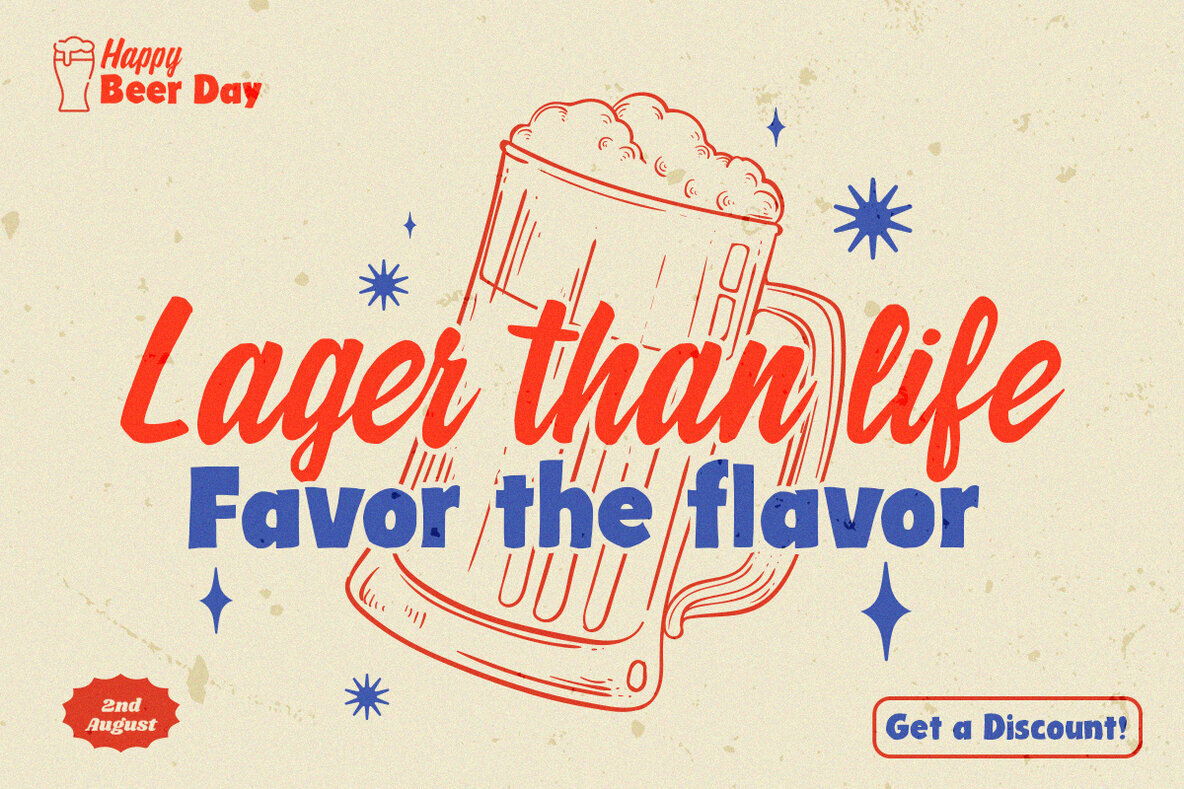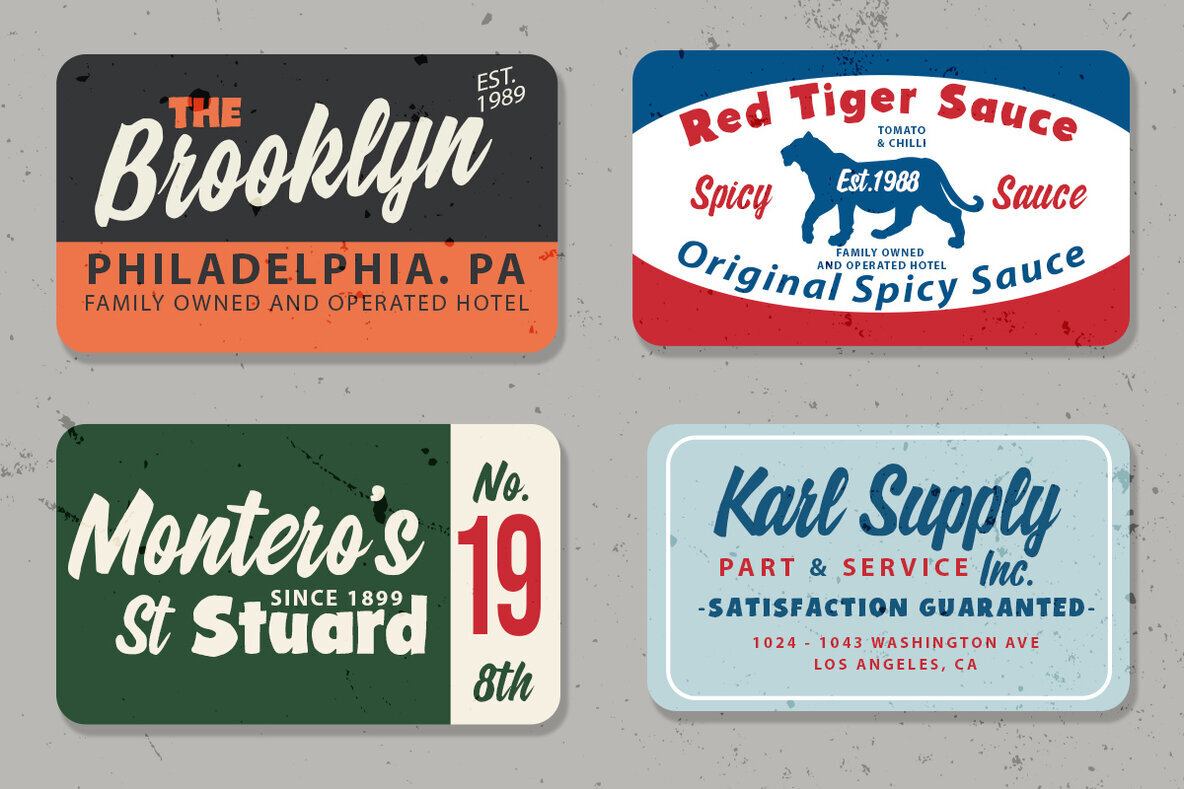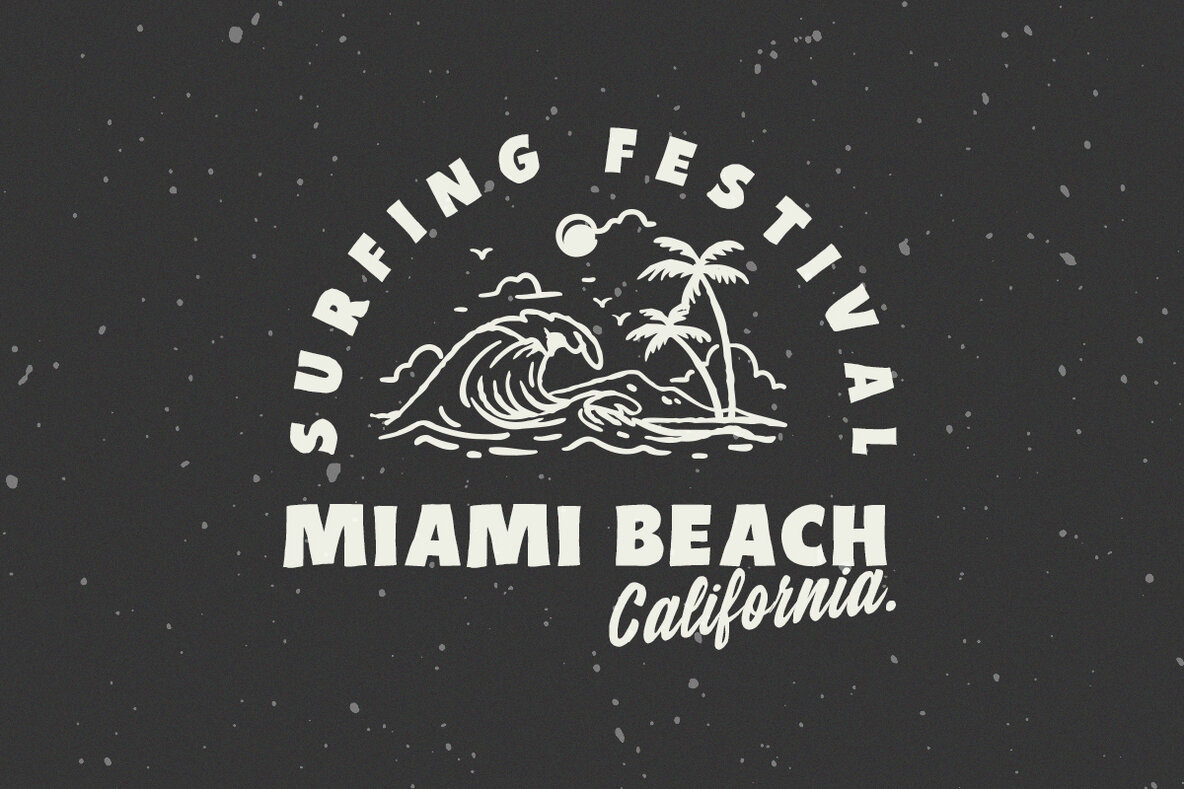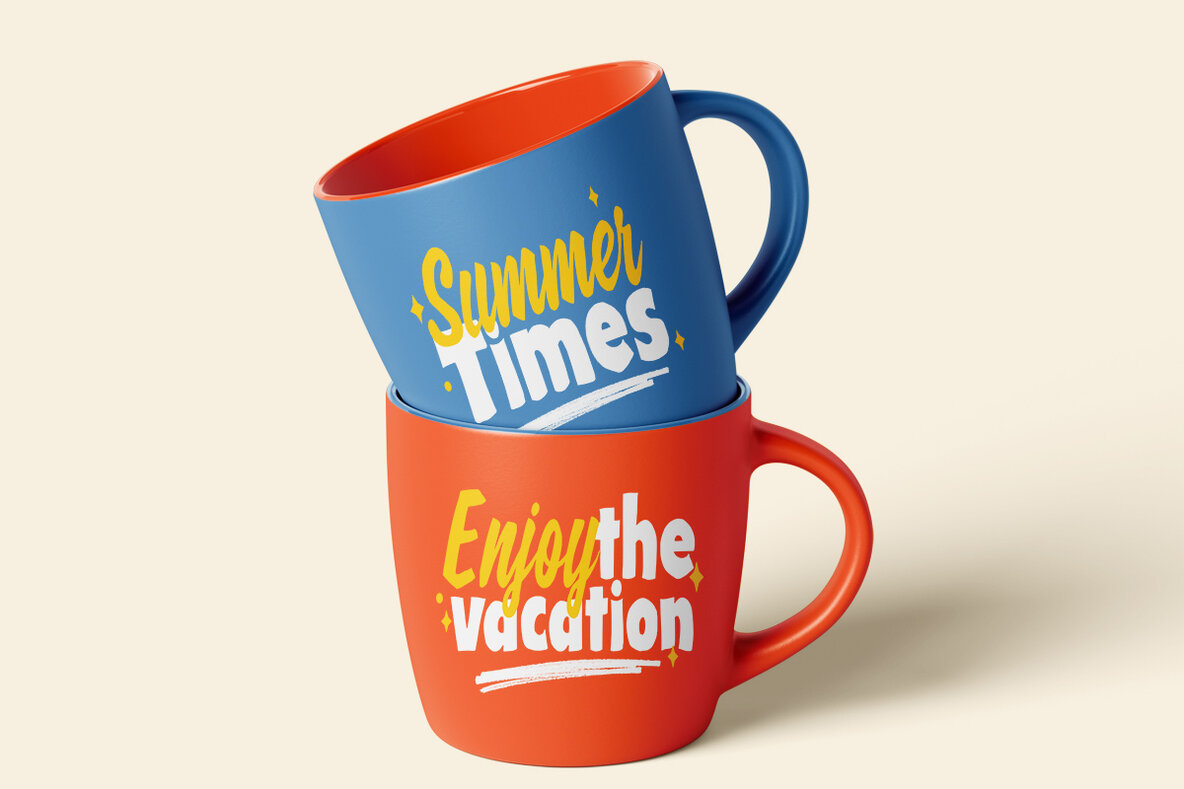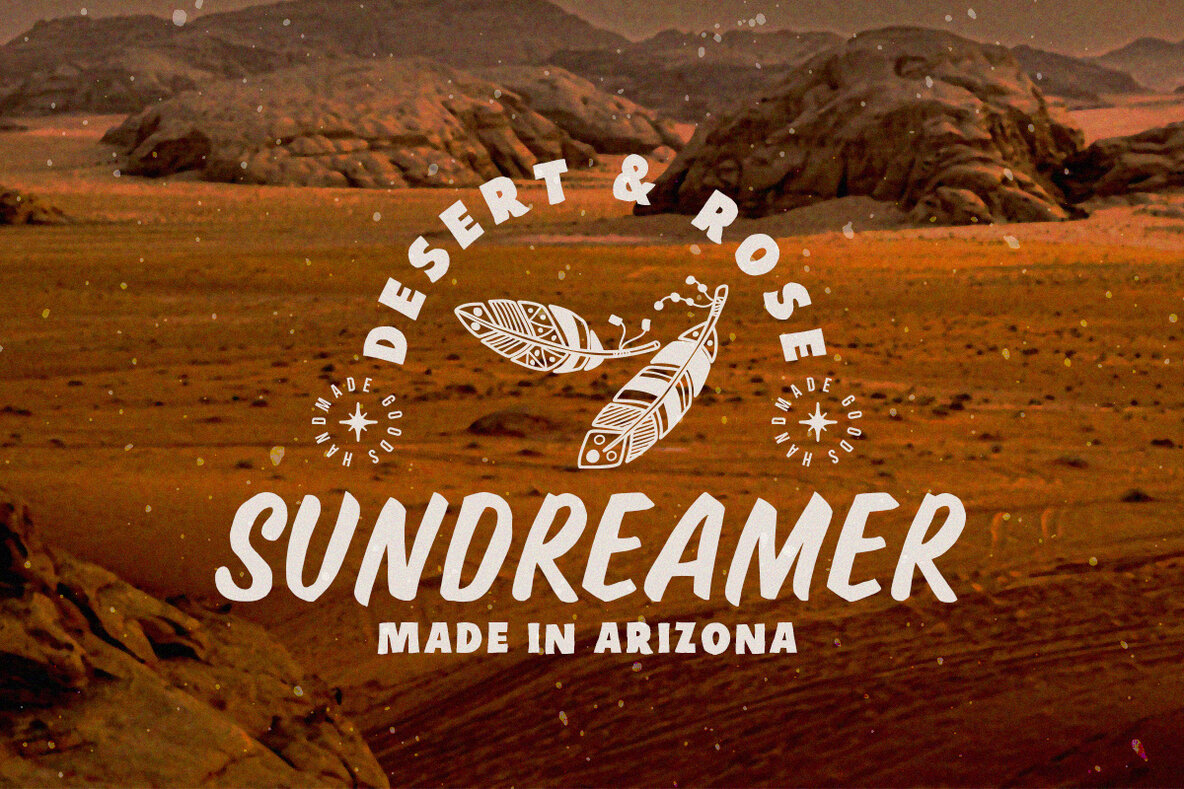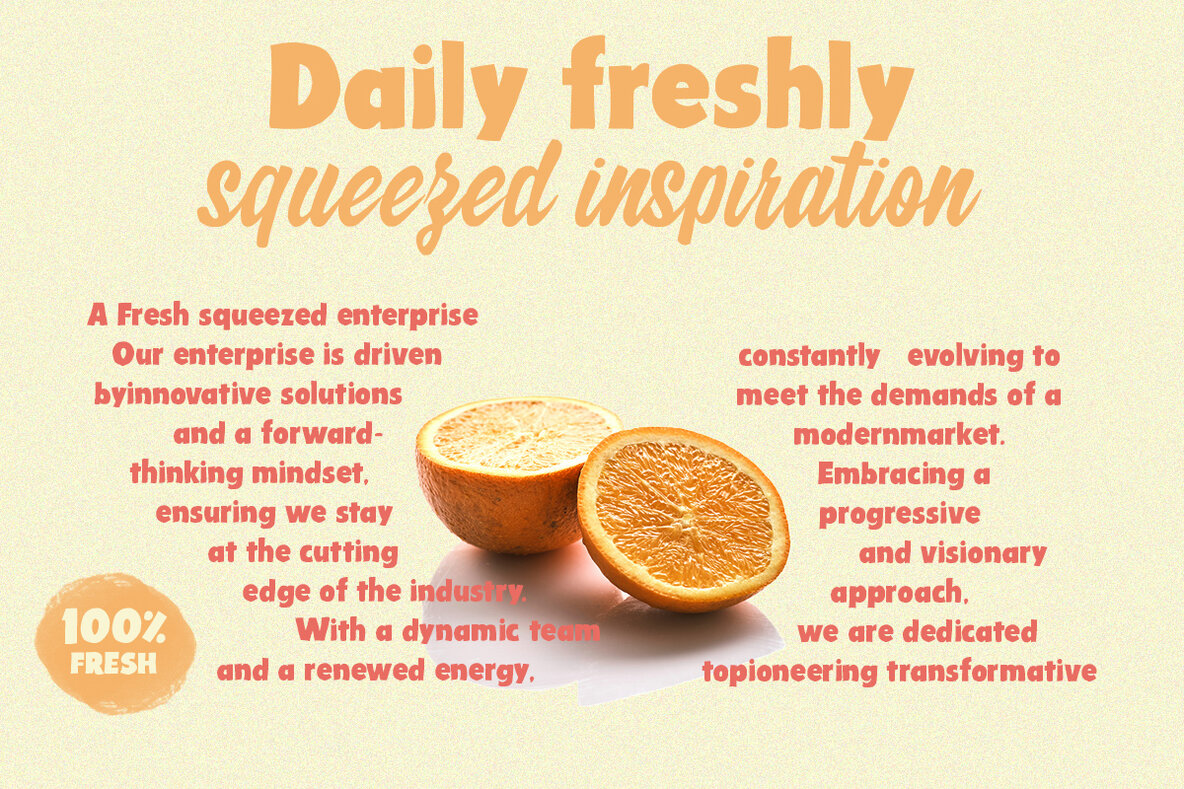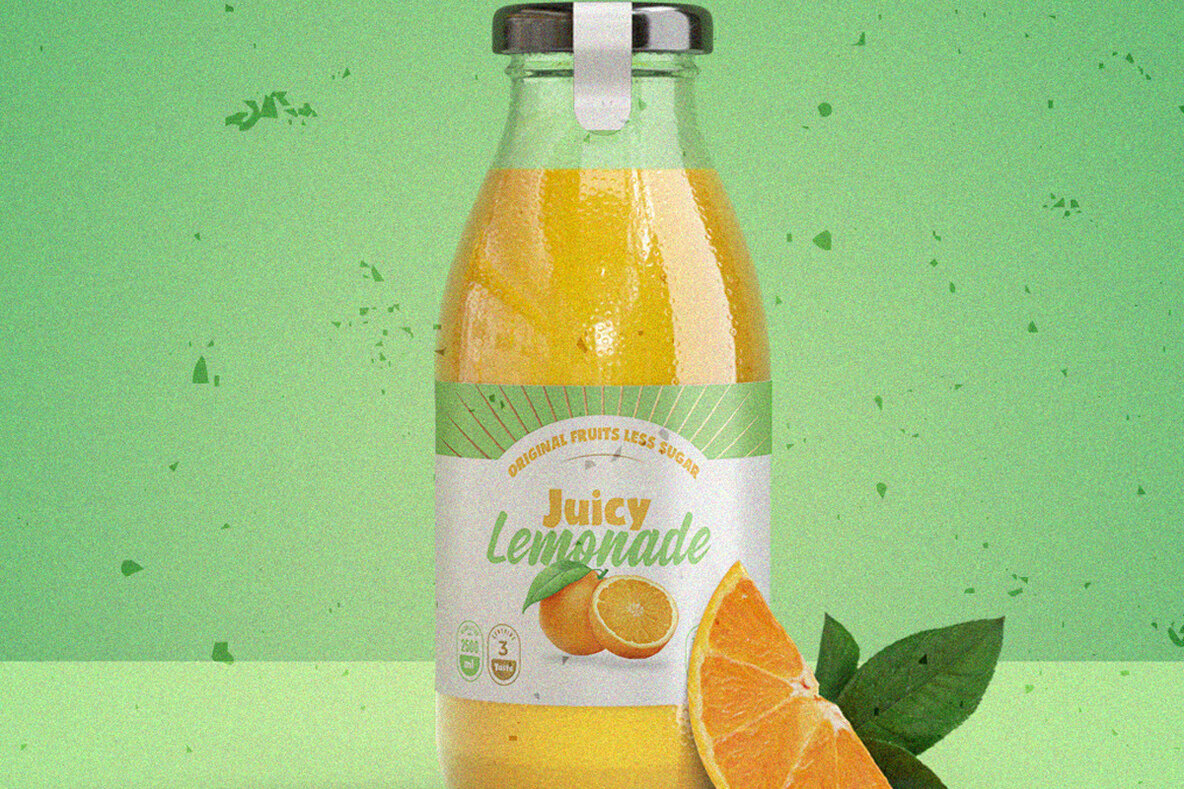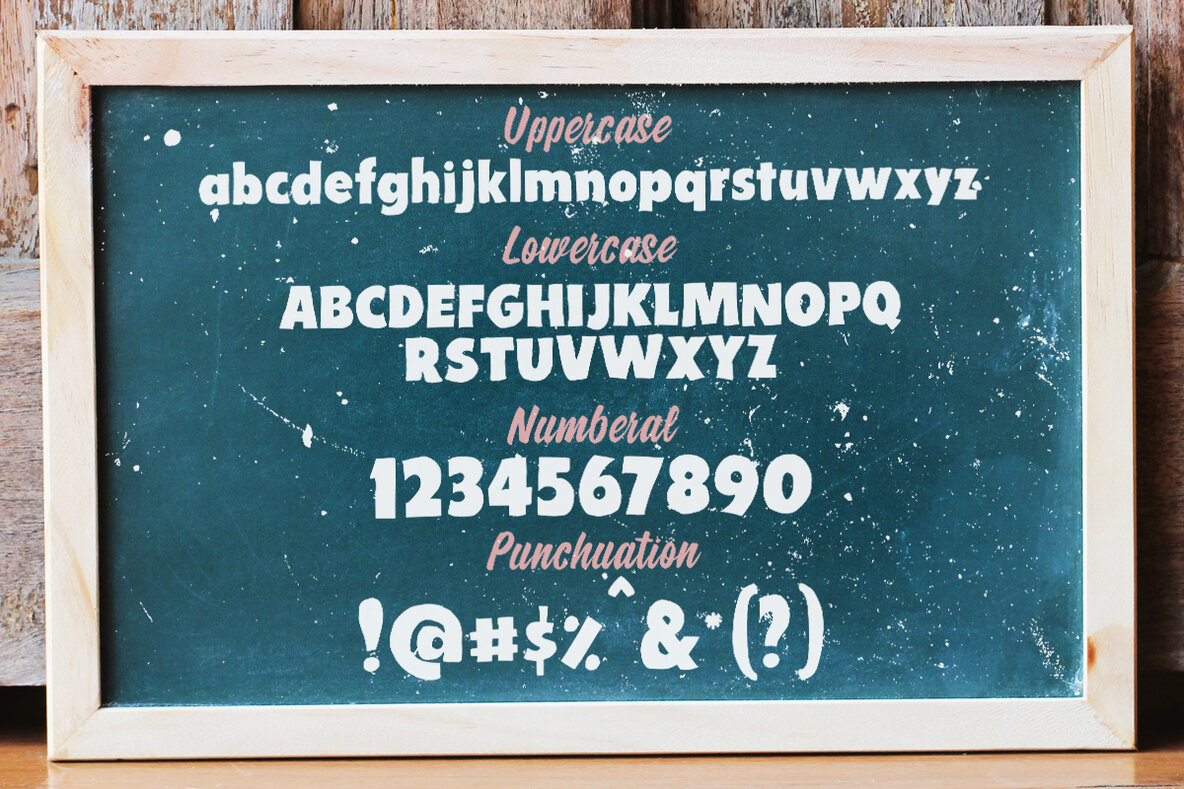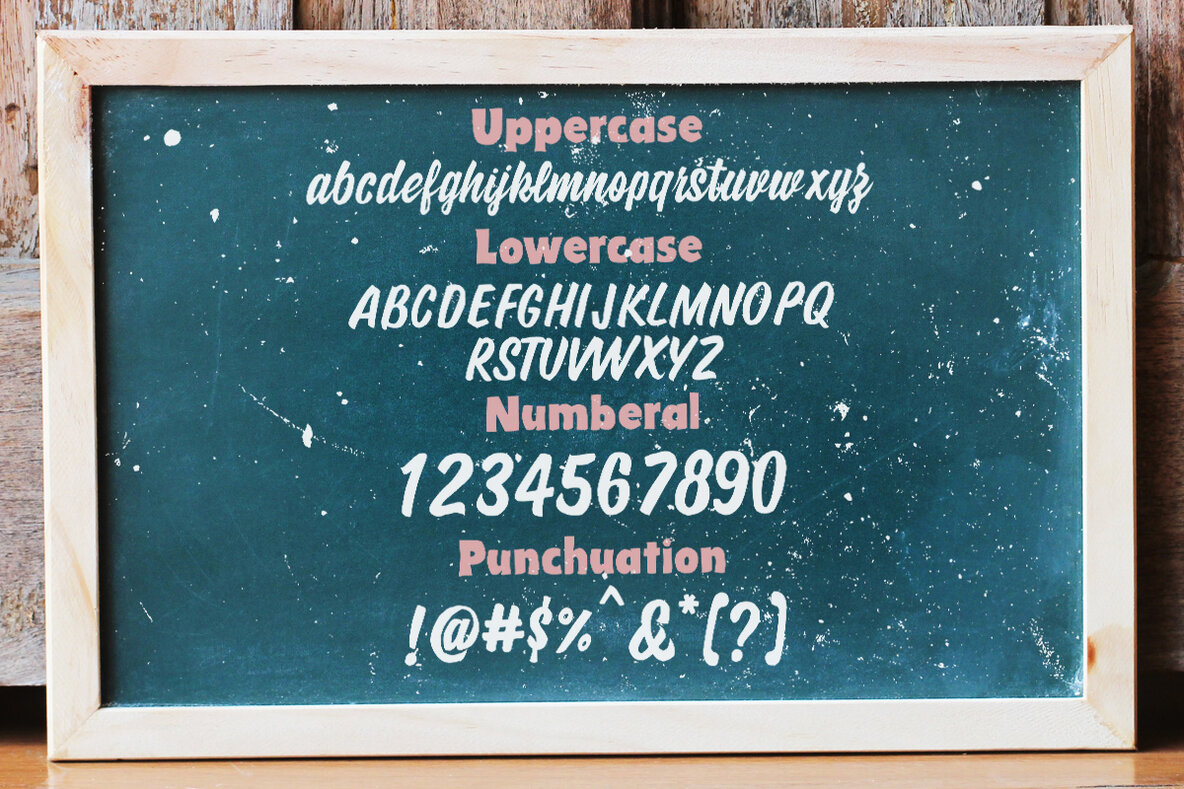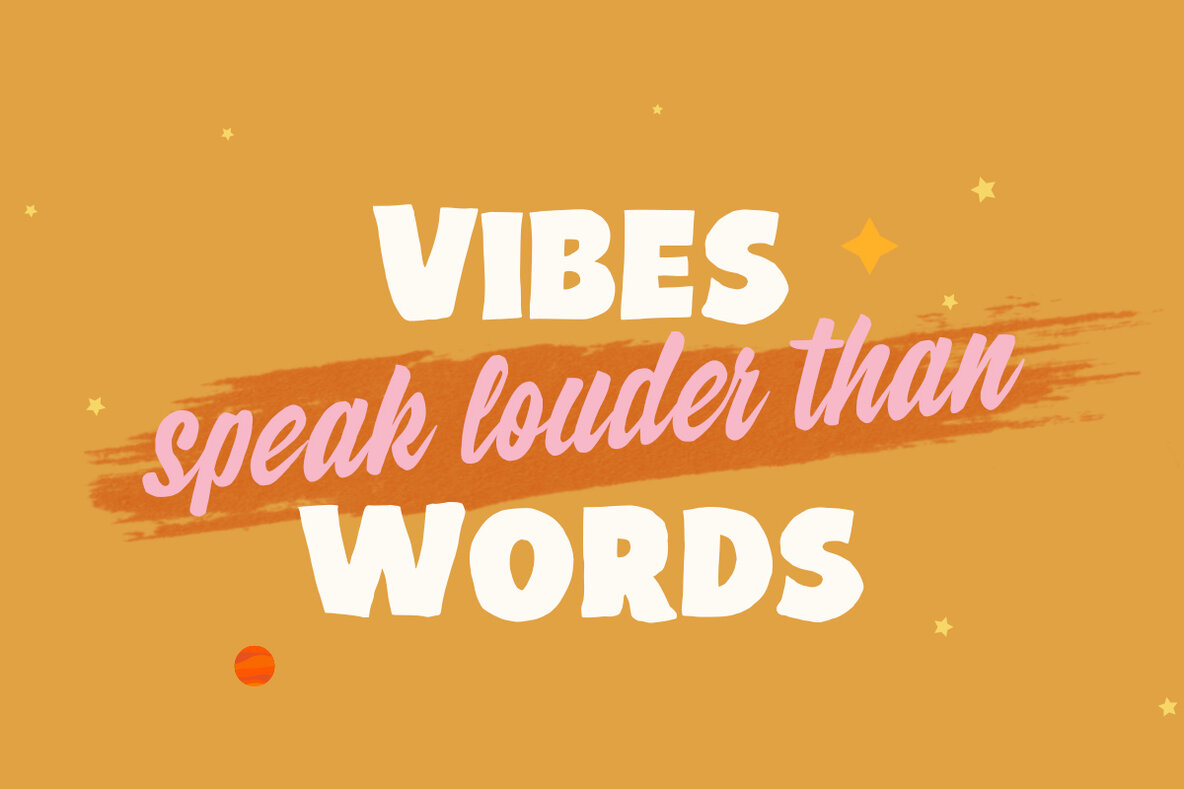
Backstage Colorize Font
Backstage Colorize Script Regular
Backstage Colorize Display
Backstage Script & Backstage Display is a hand brush font made with brushes and ink. This typeface is ideal for use in thick watercolor designs or handwriting styles, such as blog titles, posters, wedding elements, t-shirts, clothing, book covers, business cards, greeting cards, branding, merchandise etc. Contains full set : Uppercase Lowercase Ligatures Punctuation Number Multilingual support